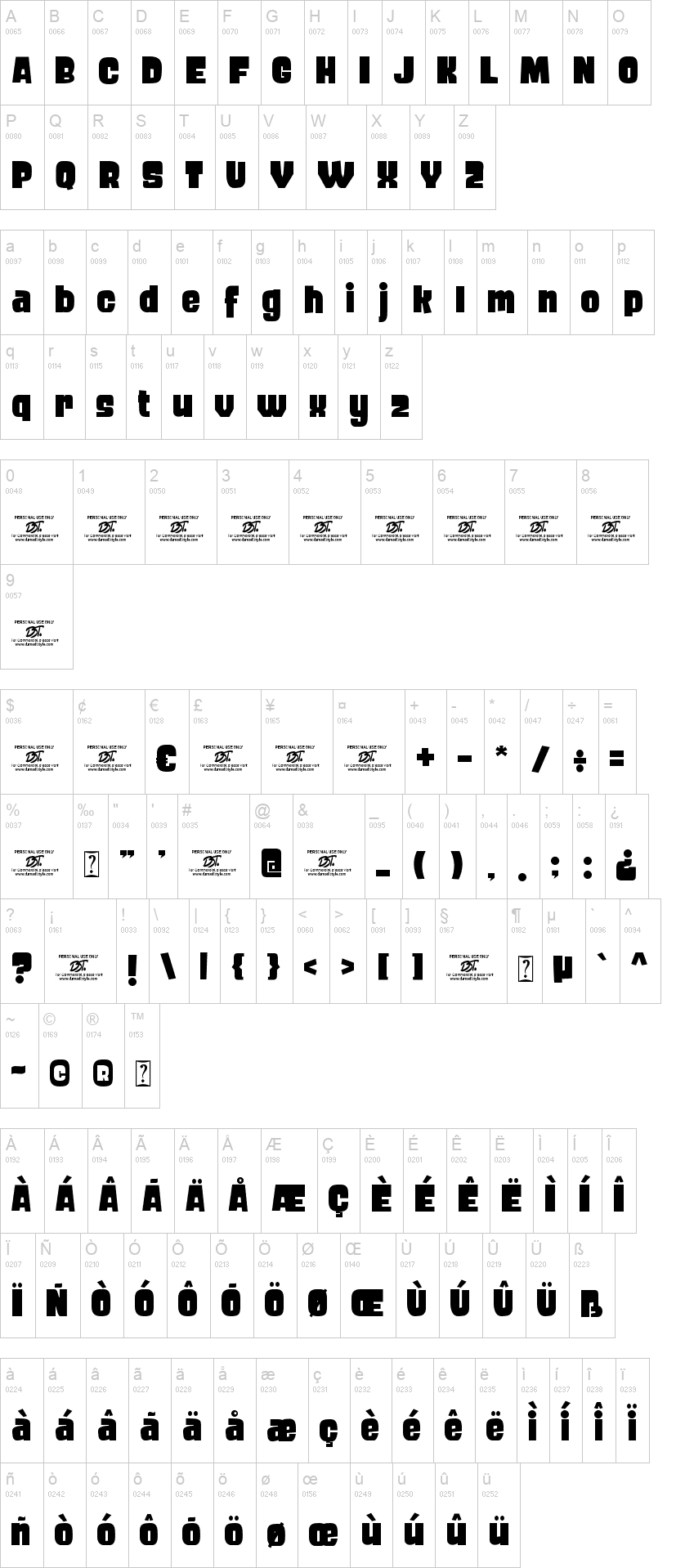
How Bold Fonts From Dafont Can Help You Make A Statement In 2023
What Are Bold Fonts?
Bold fonts are typefaces that feature thicker, more pronounced letterforms than regular fonts. Bold fonts can be used to make a statement and grab the attention of an audience. The bold fonts available on the Dafont website are among the most popular of all fonts. Dafont is a free font resource that provides a wide variety of fonts to choose from. It's a great place to find bold fonts for any project you have in mind.
How to Find Bold Fonts on Dafont
Using Bold Fonts Effectively
Once you have downloaded your chosen bold font, you will need to know how to use it effectively. Bold fonts are great for making a statement and adding visual interest to a design. However, it is important to remember that too much bold can be overwhelming. When using bold fonts, it is best to pair them with regular fonts to create a balanced look. You can also use bold fonts to highlight important words in a sentence or to draw attention to a specific element in a design.
Best Practices for Using Bold Fonts
Using bold fonts effectively is all about finding the right balance. When using bold fonts, it's best to avoid using too many different bold fonts in one design. Having too many bold fonts can make a design look cluttered and unprofessional. It's also important to consider the size of the font. Bold fonts tend to look best when they are larger, so make sure to pick a font size that is large enough to make a statement but not so large that it becomes overwhelming.
Making Your Designs Stand Out With Bold Fonts From Dafont
Bold fonts are a great way to make your designs stand out. Whether you are creating a logo, a poster, or a website, bold fonts can help you get your message across and make a statement. The bold fonts available on the Dafont website are some of the most popular in the world and can be used to create a unique and eye-catching design. With a little bit of creativity and the right font, you can make your designs stand out in 2023.